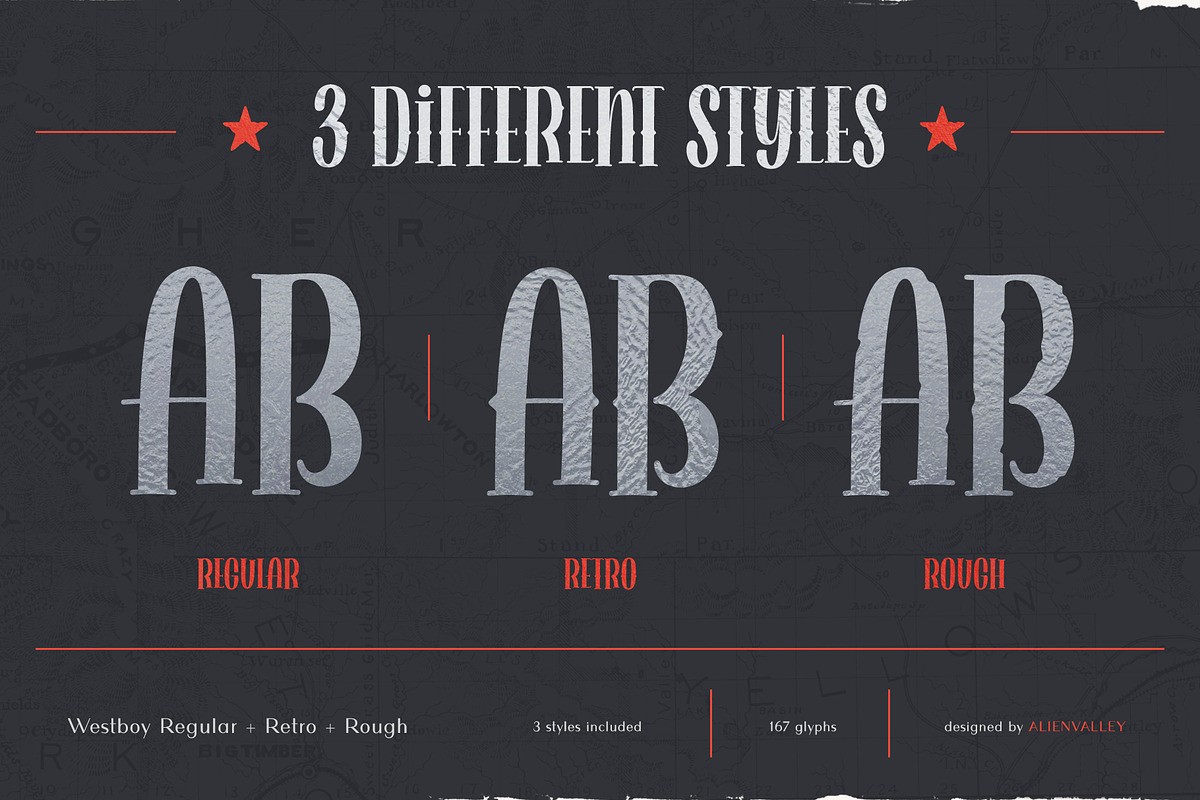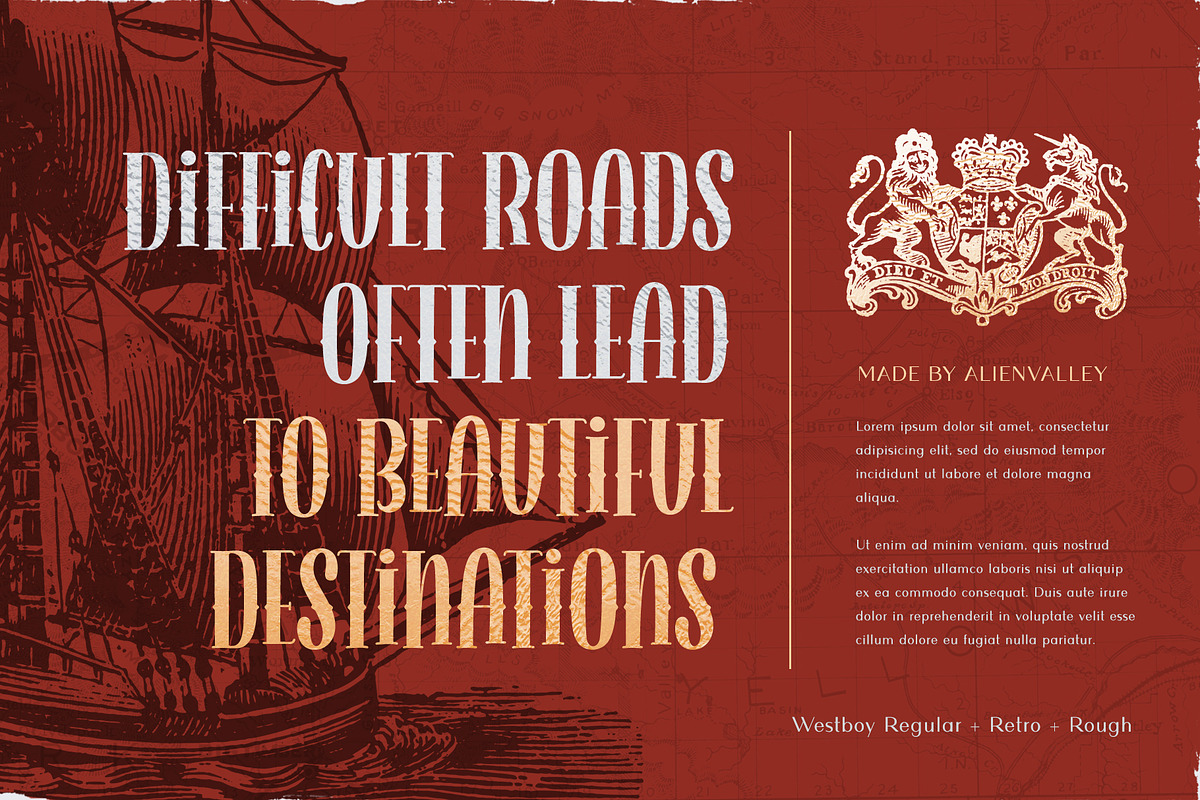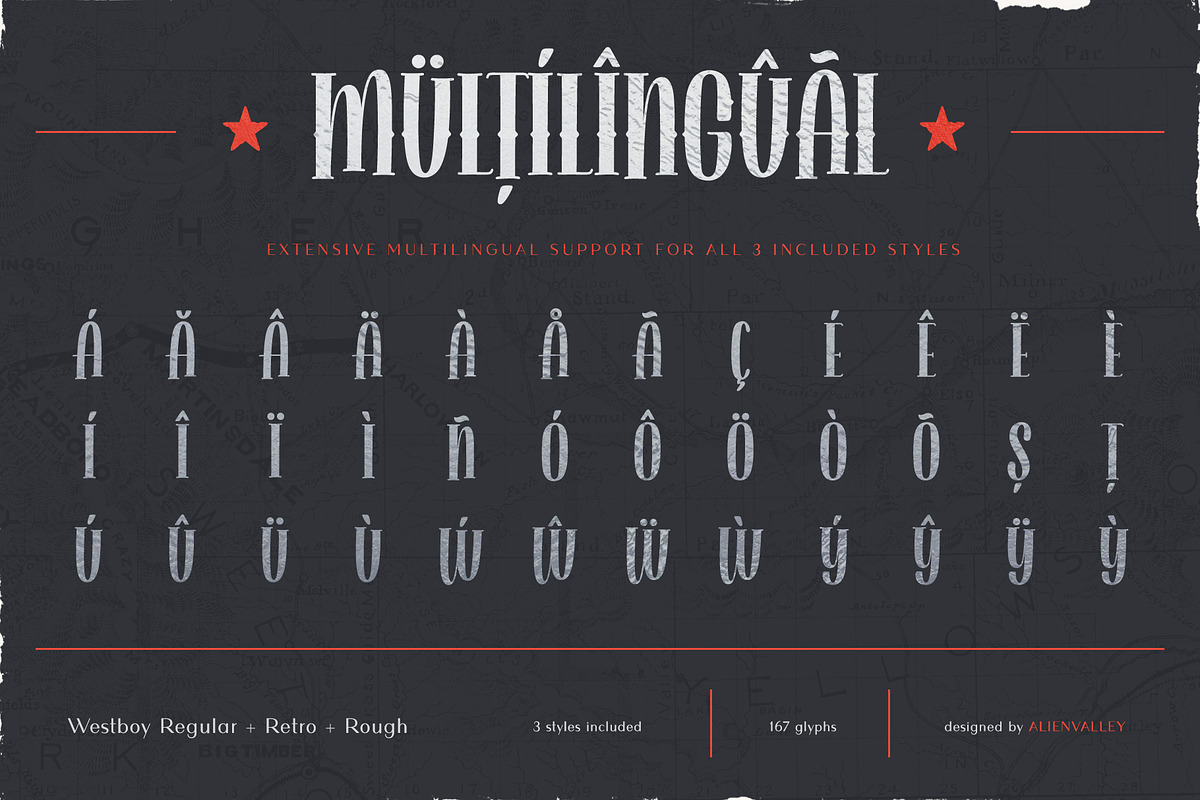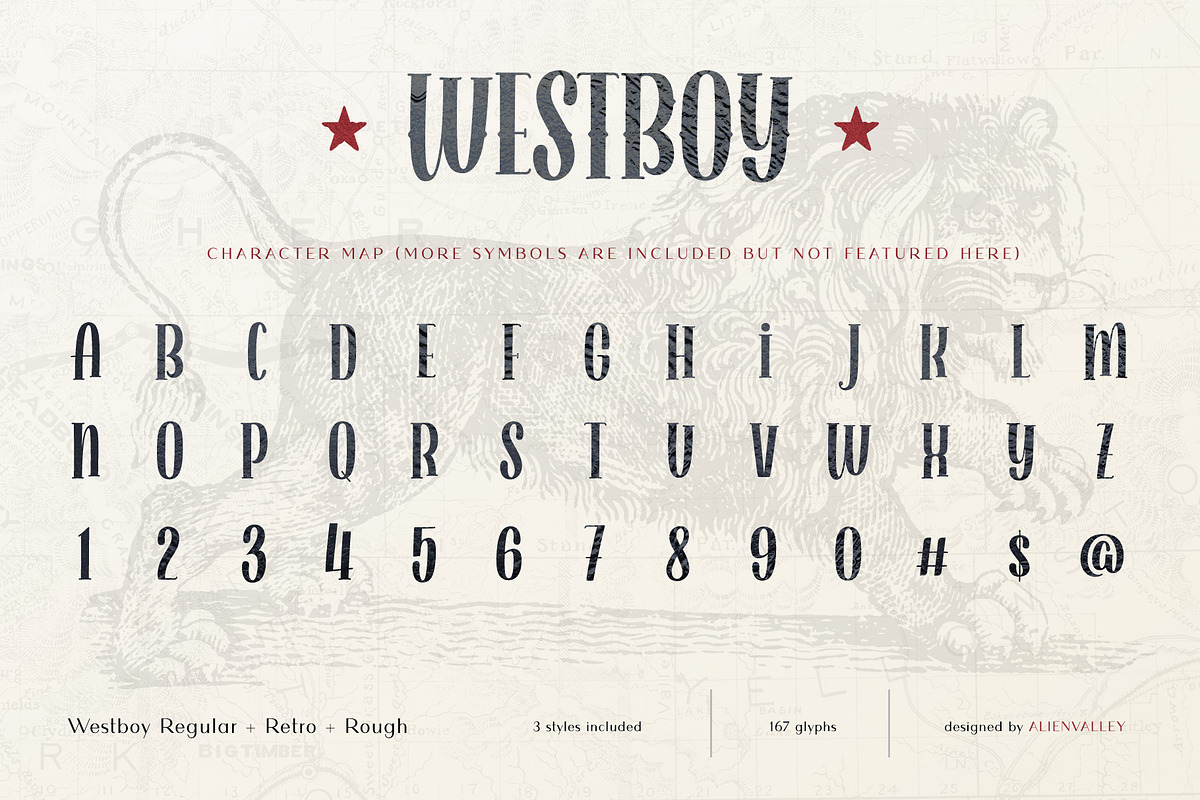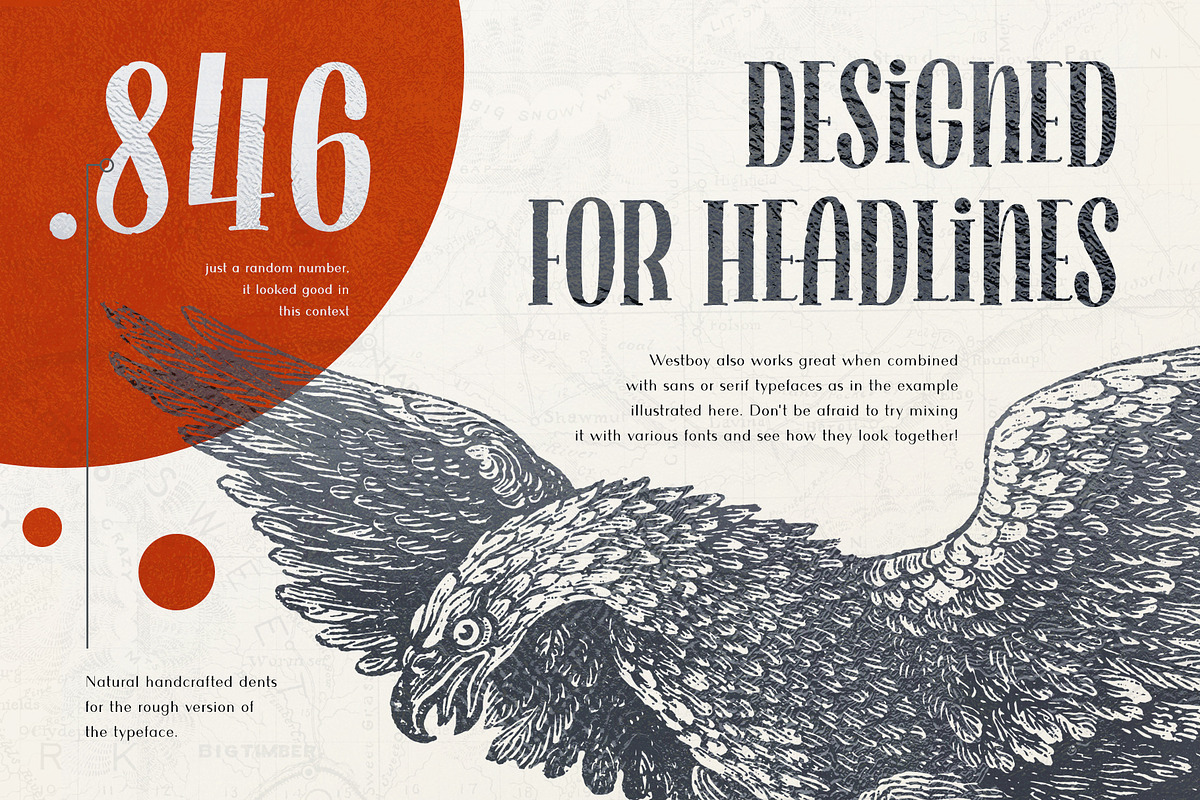
Westboy - Vintage Themed Font
Westboy is a vintage themed all caps display typeface featuring 3 styles plus multilingual support. It was mainly designed for headlines so it you can use it to drive attention to your designs.
Beautiful uppercase letters
3 Styles (Regular, Retro, Rough)
- Westboy is a vintage themed all caps display typeface featuring 3 styles plus multilingual support.
- Westboy Regular
- Westboy Retro
- Westboy Rough